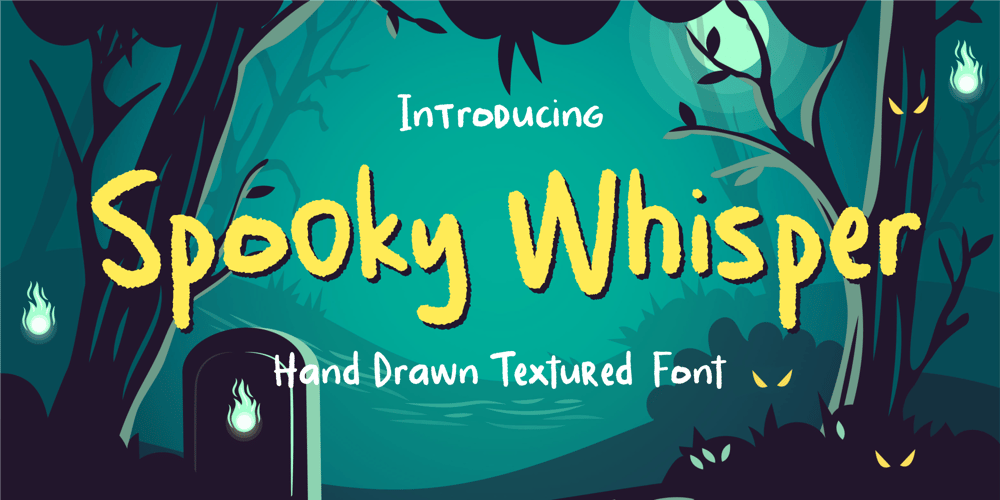
Spooky Whisper Font Family was designed by Fachrizal Yusuf and published by Allouse Studio. Spooky Whisper contains 1 styles and family package options. Proudly Presenting, Spooky Whisper a Handdrawn Textured Font.Spooky Whisper is perfect for any titles, logo, product packaging, branding project, megazine, social media, wedding, or just used to express words above the background.Spooky Whisper also come with Multi-Lingual Support.Enjoy the font, feel free to comment or feedback, send me PM or email. Thank You!